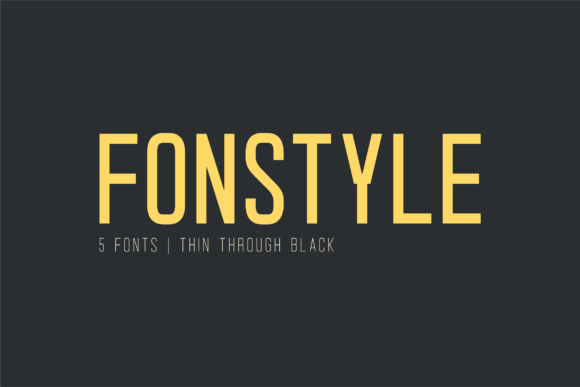
Buckle up for a typographic journey with Fonstyle Family, a sans-serif font family that will invigorate your designs with a contemporary flair. This font family is meticulously crafted to provide unparalleled versatility, featuring five weights ranging from Thin to Black. Whether you're crafting captivating headlines, branding your business, or creating social media posts that pop, Fonstyle Family is your ultimate design companion.
Step into a world of sophistication and readability, where Fonstyle Family effortlessly elevates your designs to new heights. Its clean and crisp letterforms ensure clarity and legibility, making it the perfect choice for both digital and print applications. From website designs to brochures, Fonstyle Family will add a touch of elegance and professionalism that commands attention.
Unleash your creativity and let Fonstyle Family become your go-to font for impactful quotes on images. With its visually stunning letterforms, your words will come alive, captivating your audience and leaving a lasting impression. Transform your social media posts, posters, and marketing materials into works of art that resonate with your audience.
Fonstyle Family is the brainchild of Huntype, a renowned font foundry known for creating fonts that stand the test of time. Each weight in the Fonstyle Family has been carefully designed to provide a unique flavor, ensuring you have the perfect font for any occasion. Experience the joy of seamless design and effortless creativity with Fonstyle Family.
Join the creative revolution and embrace Fonstyle Family today. Let your designs shine brighter, your words speak louder, and your brand stand taller. Say goodbye to ordinary fonts and embrace the extraordinary with Fonstyle Family. Your design projects deserve nothing less.